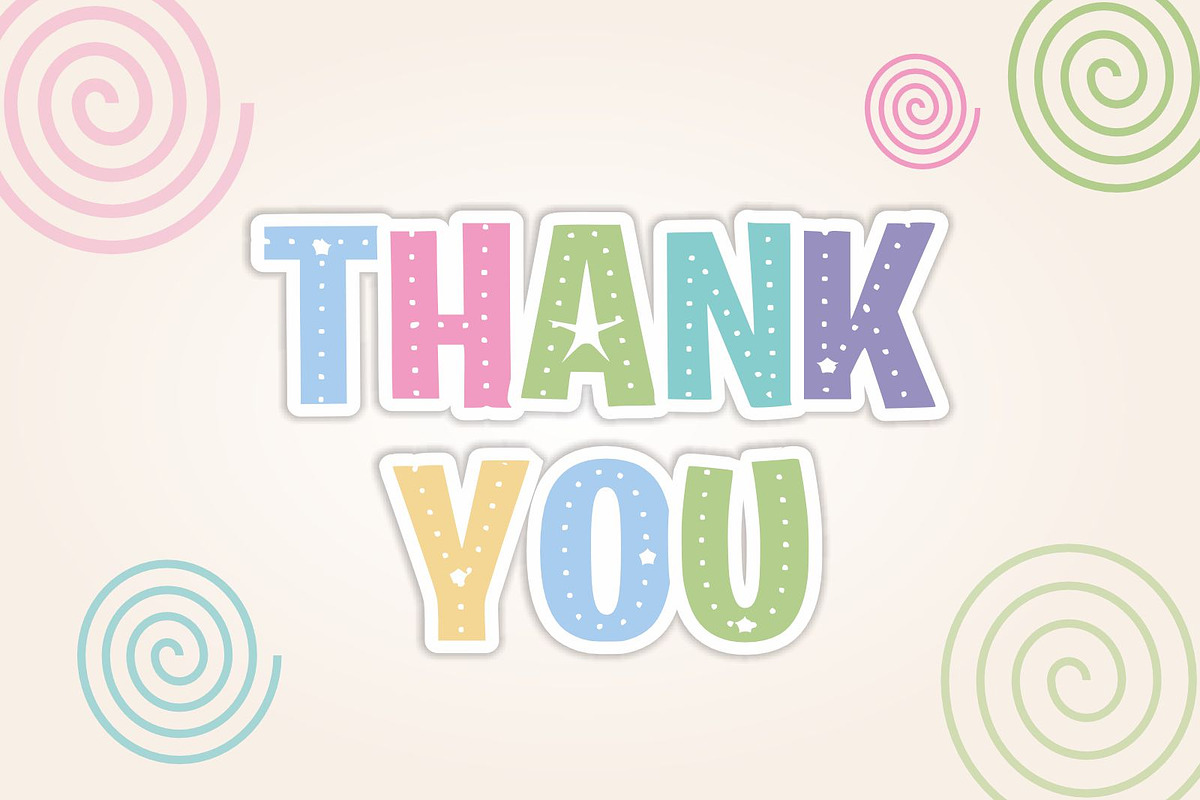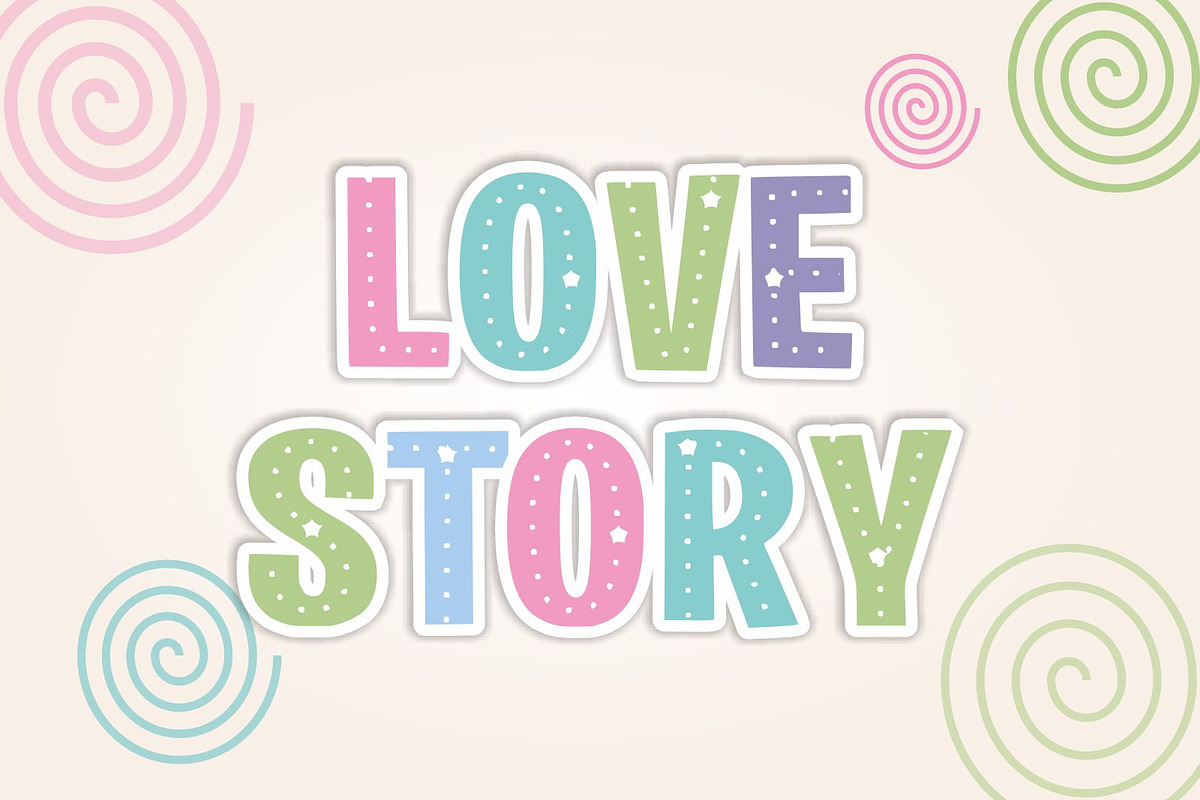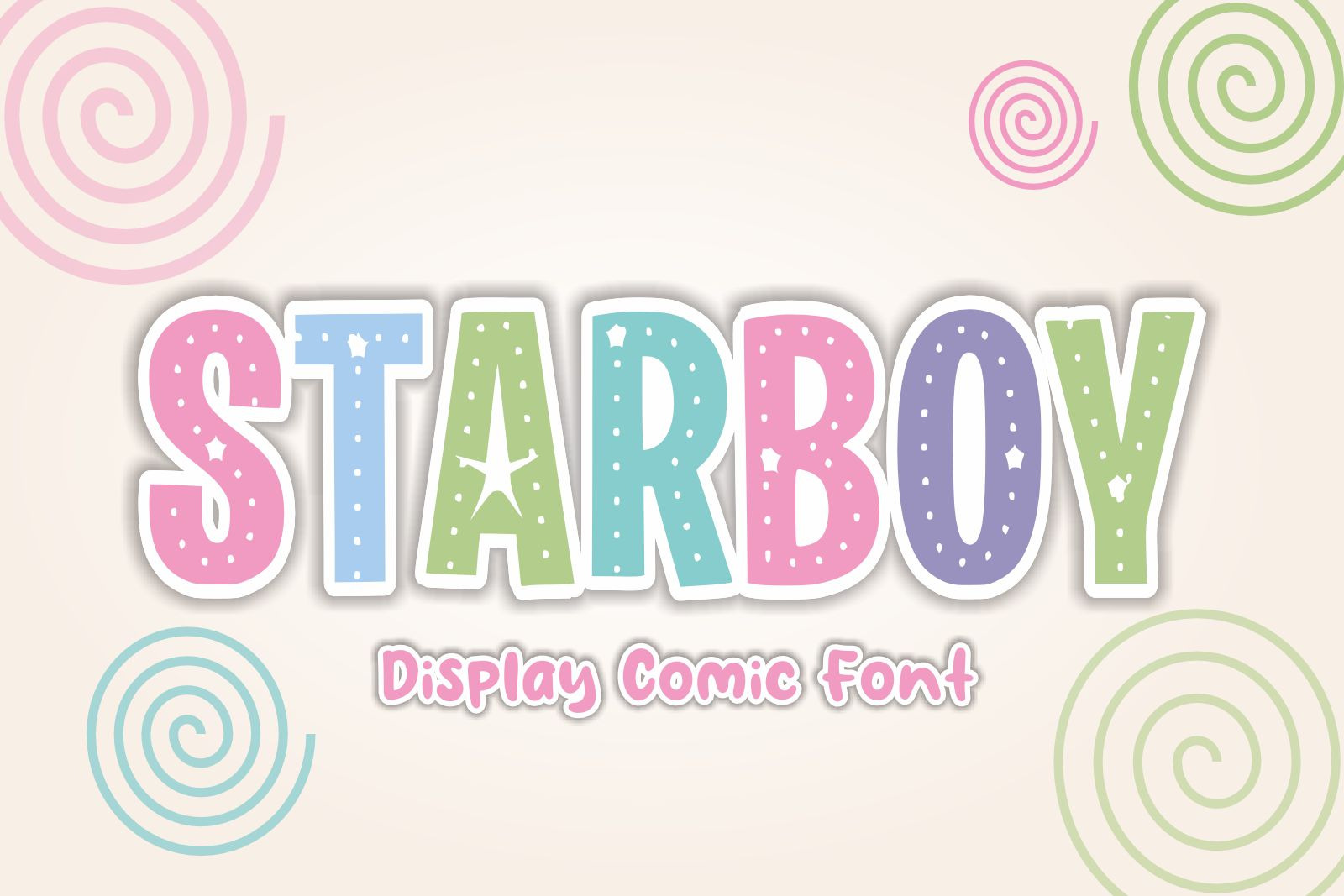
Starboy - Kids Font Types
Starboy is a cheerful font that brings fun and excitement to your projects. With script styles and displays, it offers versatility for a variety of creative endeavors. Let Starboy add a splash of color and whimsy to your designs, perfect for anything from invitations, stickers, comics and posters.